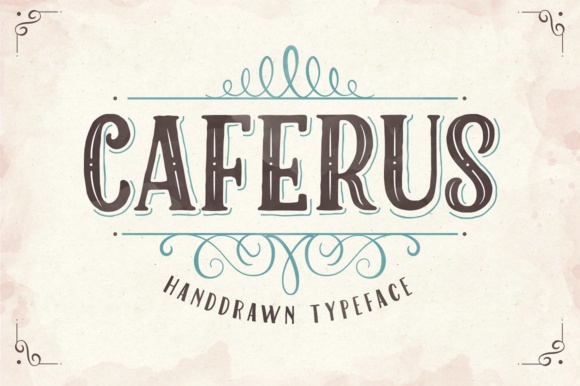
Step into the world of Caferus Font, a remarkable display font family that exudes charm and warmth, effortlessly transporting you to a cozy coffee shop ambiance. Immerse yourself in the nostalgic yet modern aura of this font, meticulously crafted to evoke a sense of familiarity and comfort.
Born from the inspiration of classic cafe lettering signage, Caferus Font possesses an inherent friendliness that instantly connects with your audience. Its layered design adds a touch of depth and dimension, inviting viewers to linger and savor the intricate details.
With Caferus Font, you'll discover a font that seamlessly blends the past and present, capturing the essence of vintage charm while maintaining a contemporary edge. Its versatility shines through in its ability to elevate any design project, from logos and branding to posters and social media graphics.
Unleash your creativity and let Caferus Font infuse your designs with a welcoming and inviting atmosphere. This font is not just a collection of letters; it's an experience that speaks to the heart and resonates with your audience.